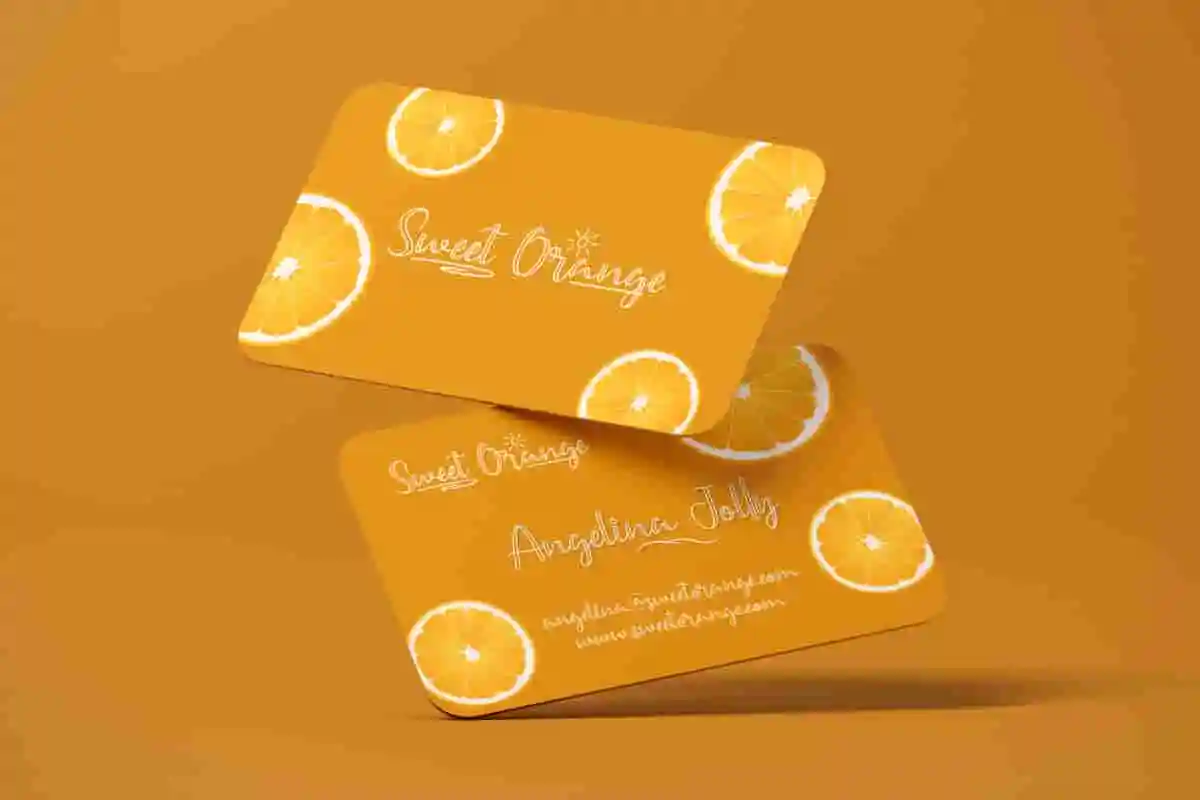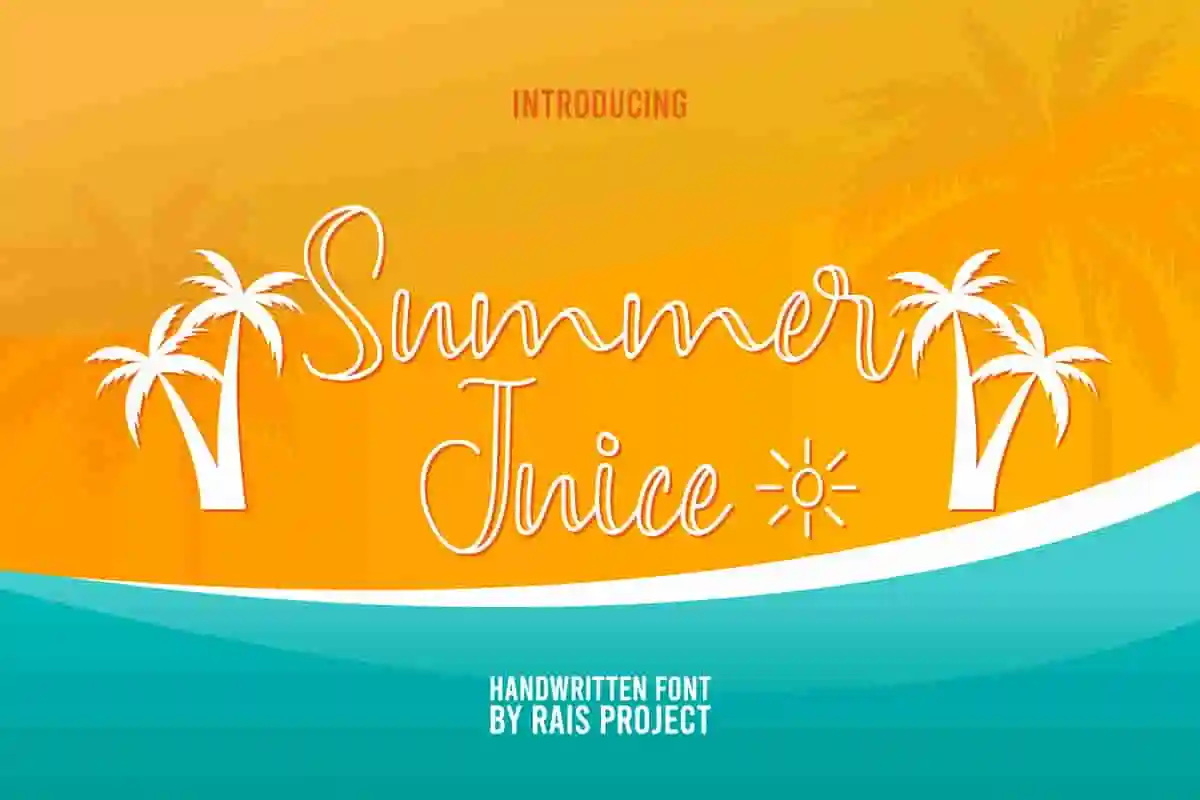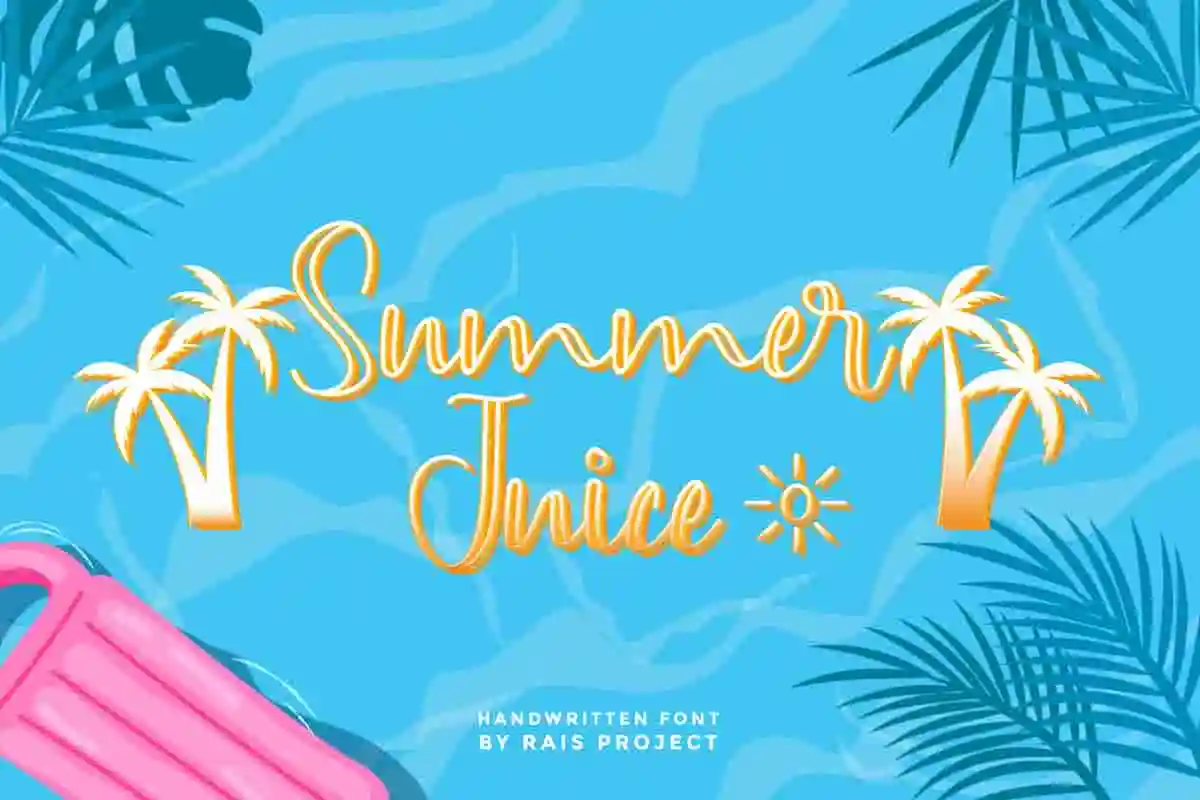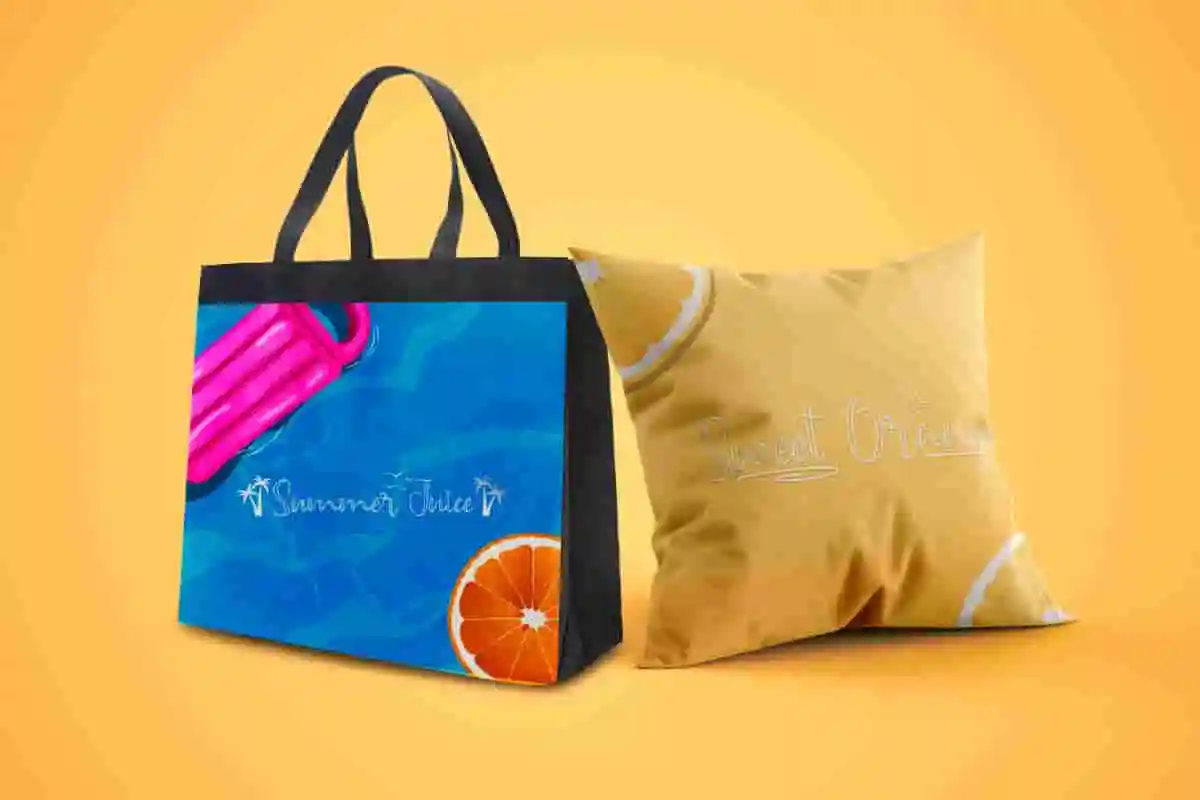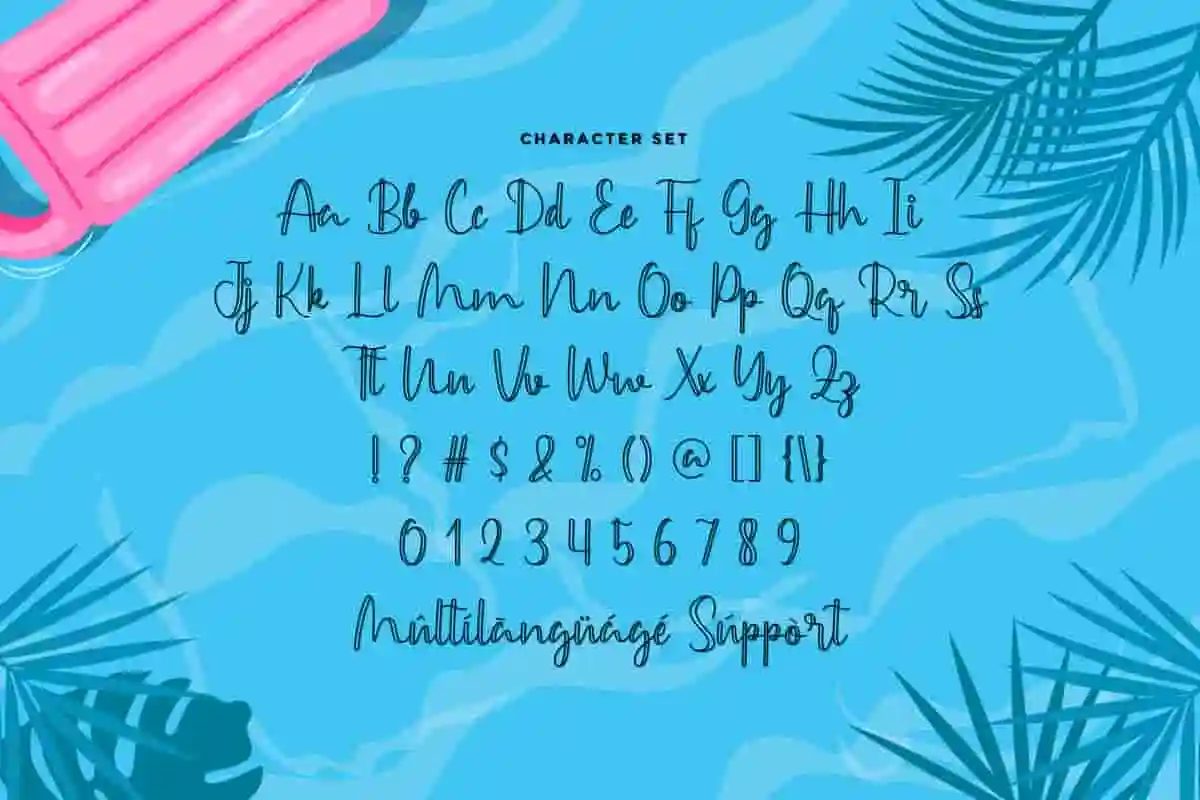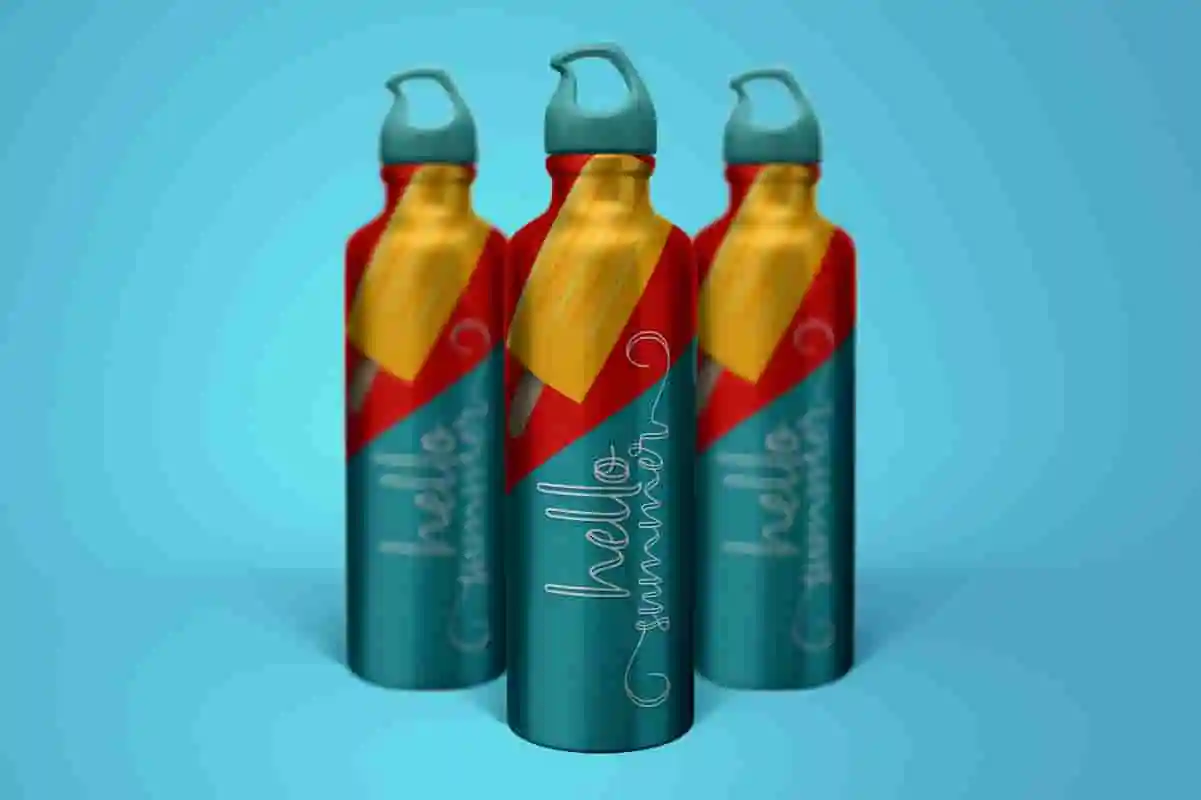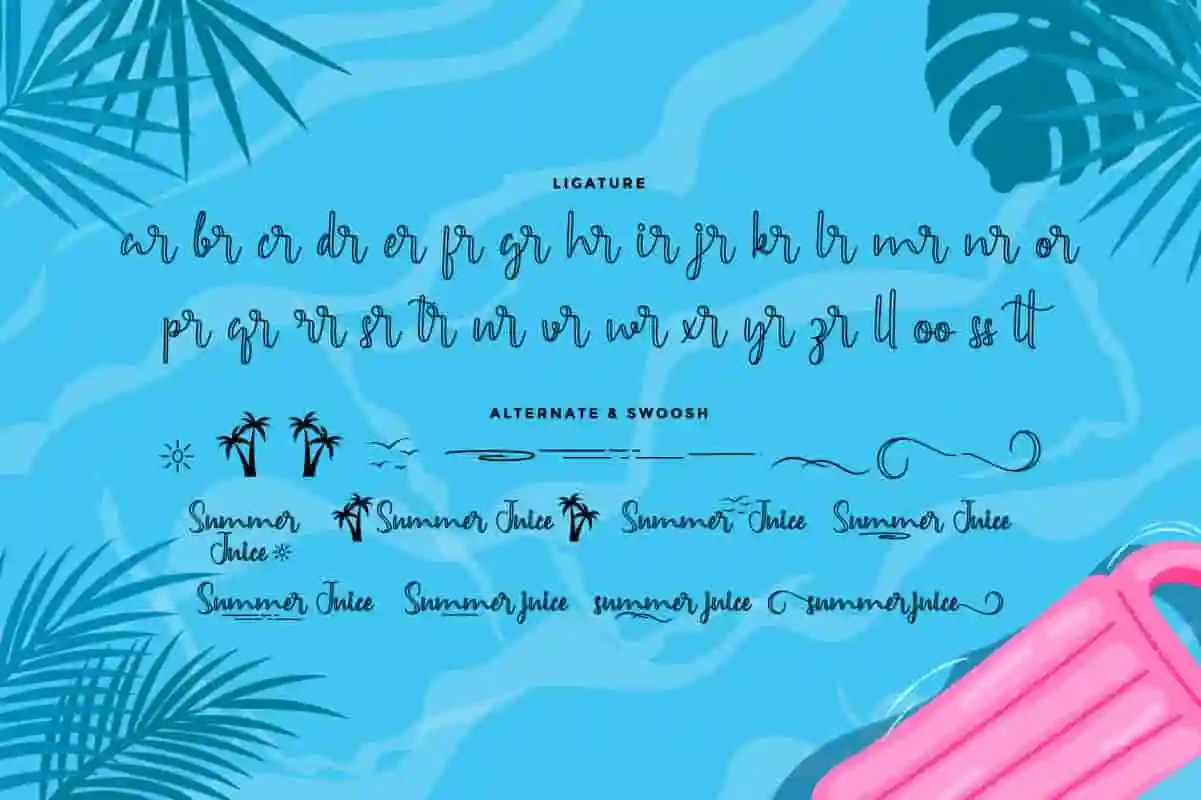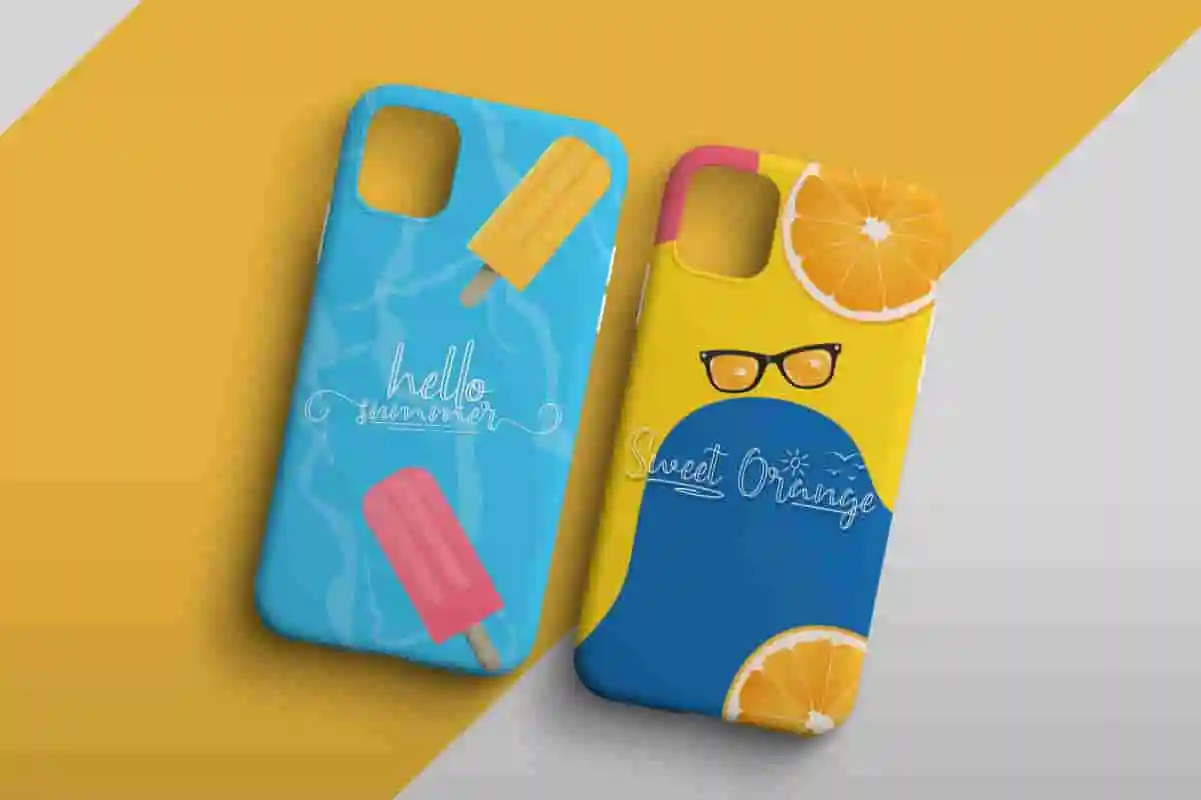
Summer Juice Handwriting Font
Summer Juice Font is a beautiful decorative handwriting calligraphy font by RaisProject. It will be great for flyer, Invitation, branding, watermark, promotion, events, advertising etc
Summer Juice is a decorative handwriting script font with line art style. You can see the demo font below. You can also input any word you want so you can see what it will look like :
Summer Juice Font handcrafted With simple characters, it will be stunning for any your special projects including : promotion, events, branding, advertising, magazine, apps, signage, invitation, stationery, social media posts, product packaging, product designs, label, comic, watermark or and any projects that need calligraphy handwriting style. Summer Juice handwriting Font includes full set of cool uppercase and lowercase letters, numerals, a large range of punctuation and ligatures. All letters has hand-lettered style to make it unique yet cool looking design. You will get: